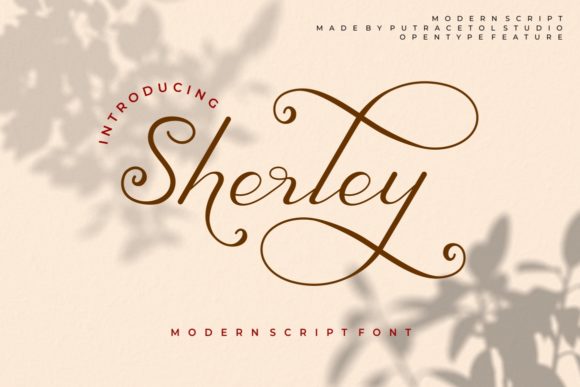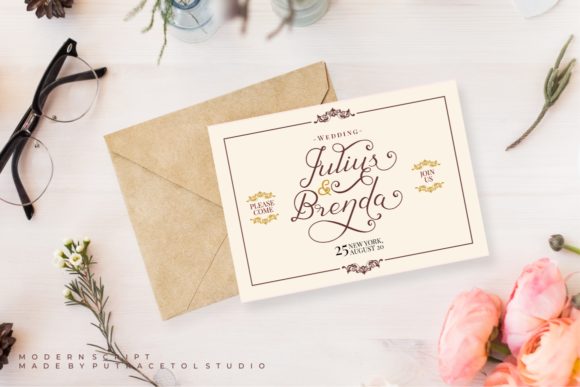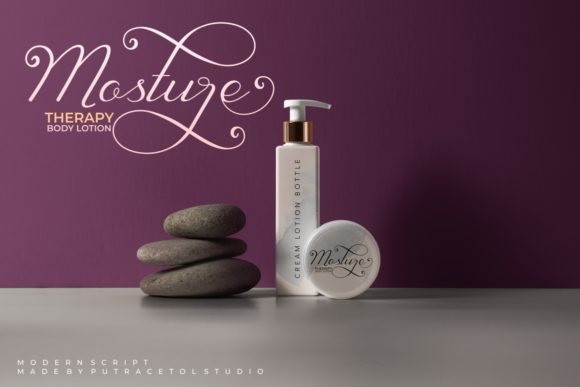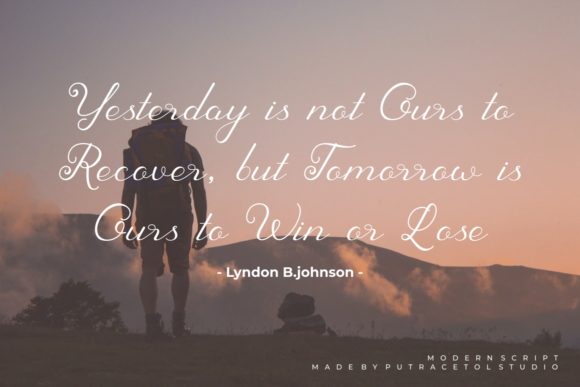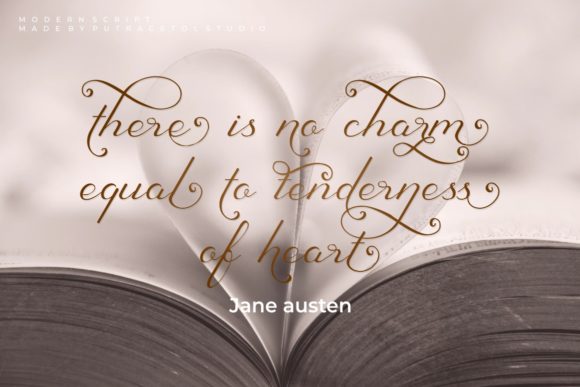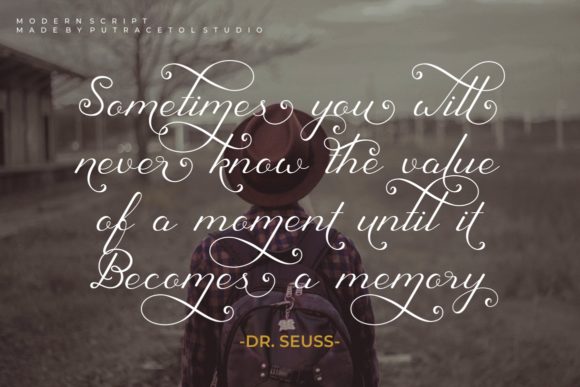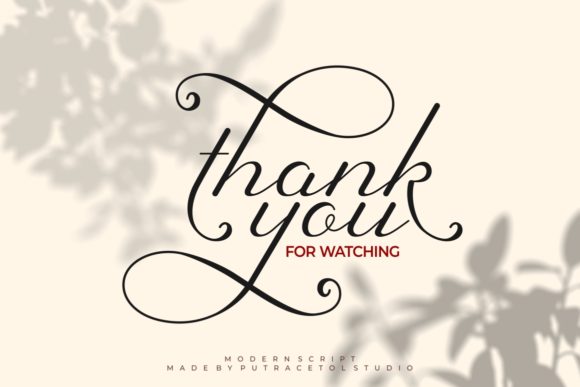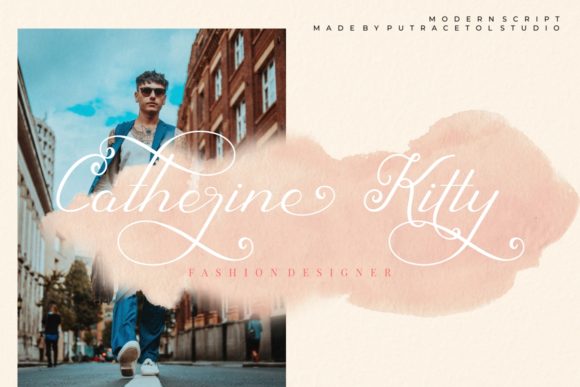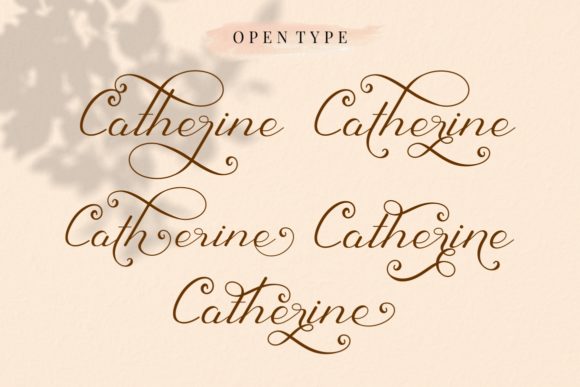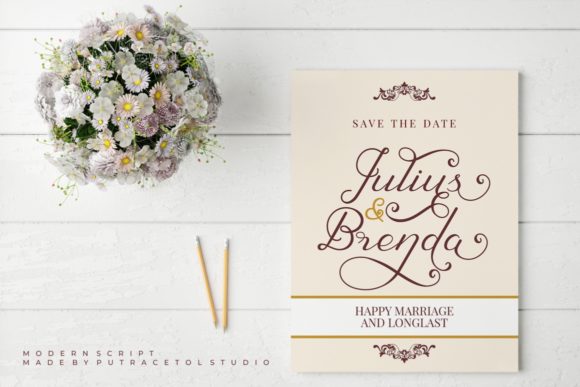
Sherley Font
About Sherley Font
Sherley is a stunning and beautiful handwritten font, full of life. Fall in love with its bold swashes, and timeless charm!